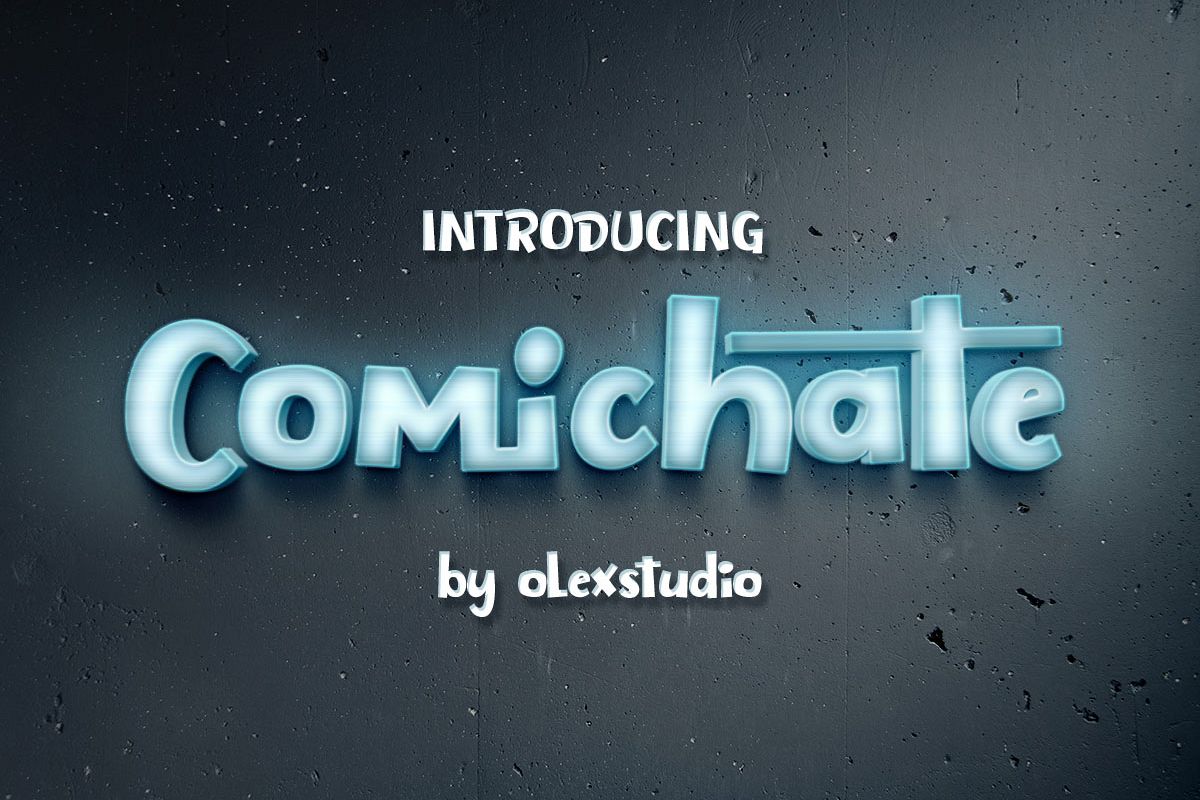
COMICHATE
Comichate
hi Friends......Comichate is a beautiful Display Font, It suitable for Poster, greeting cards, T-Shirt, Logo, Branding or any design that you create.comes with a complete set of standard characters,Punctuation & international glyphsFeatures